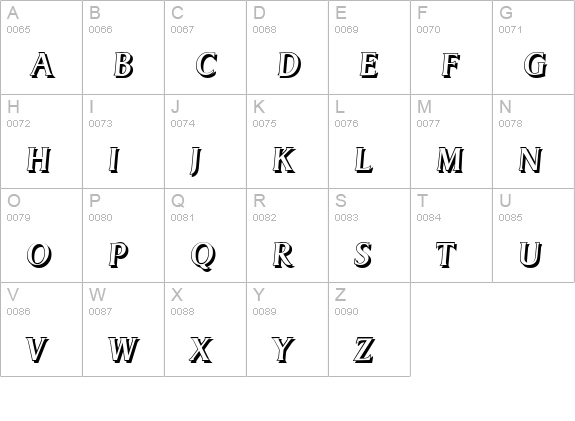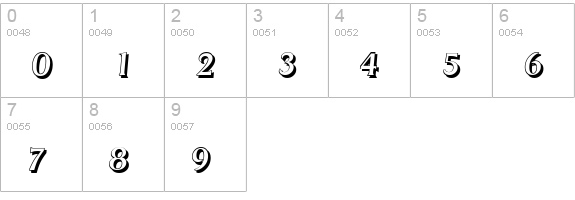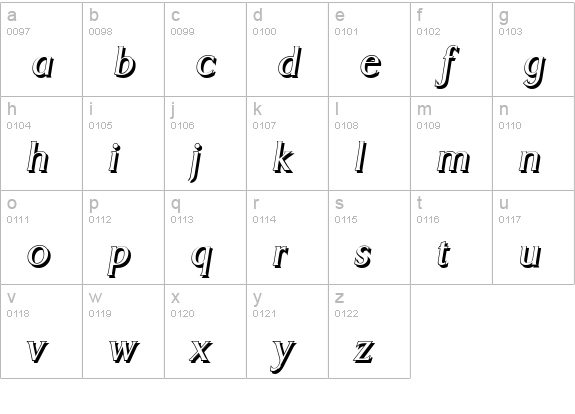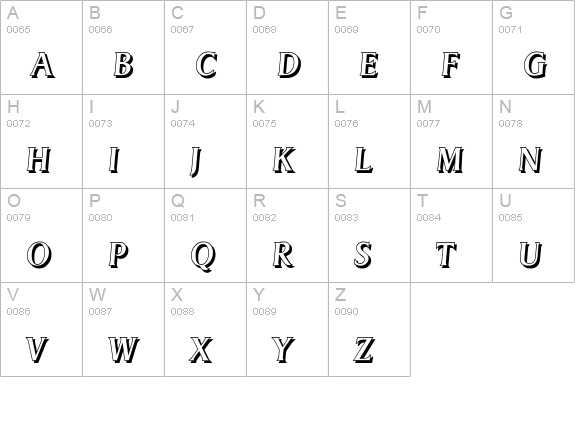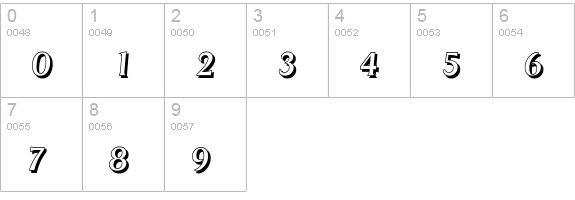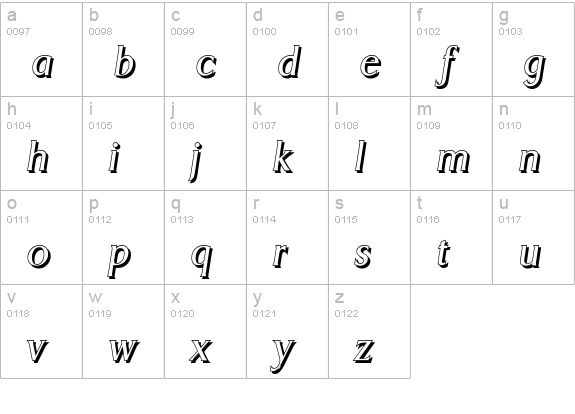
DragonShadow-Italic Font Details
DragonShadow-Italic is a distinctive, italic variant in the DragonShadow typeface family \xE2\x80\x94 well suited to design and typography projects.
DragonShadow-Italic font is a stunning display typeface that exudes a sense of mystery and power. The elegant italic style combined with intricate details gives this font a unique and captivating look, making it perfect for adding a touch of magic to your designs. Whether you are working on a fantasy project, a poster, or a logo, DragonShadow-Italic font will surely make a bold statement. And the best part is, DragonShadow-Italic font is completely free to download at FontsMarket.com! This means you can easily access this beautiful font and use it in your personal and commercial projects without any restrictions. Don't miss out on this amazing opportunity to enhance your designs with the enchanting DragonShadow-Italic font. Download it now and let your creativity soar!